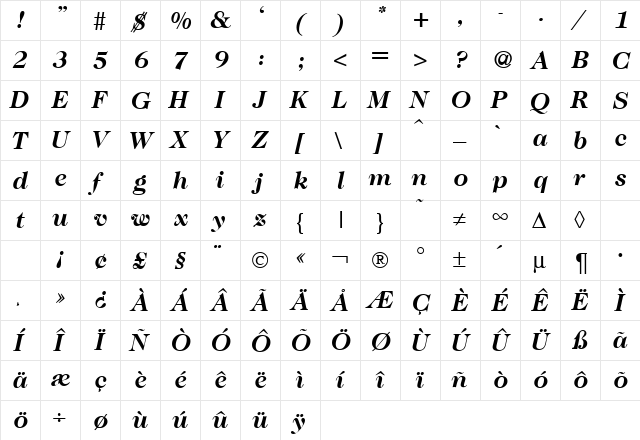
Caslon335 BoldItalic Font Preview
Design Context for Caslon335 Typeface
Caslon335 takes a measured approach to typography — its balanced proportions and neutral character make it a reliable workhorse for both digital and print work. Its italic angle brings a sense of urgency and motion to the letterforms. The heavy weight commands attention and anchors typographic hierarchies.
Pro Tip: Try Caslon335 for annotation and caption copy alongside an upright companion — the contrast in angle creates a dynamic but ordered typographic system.